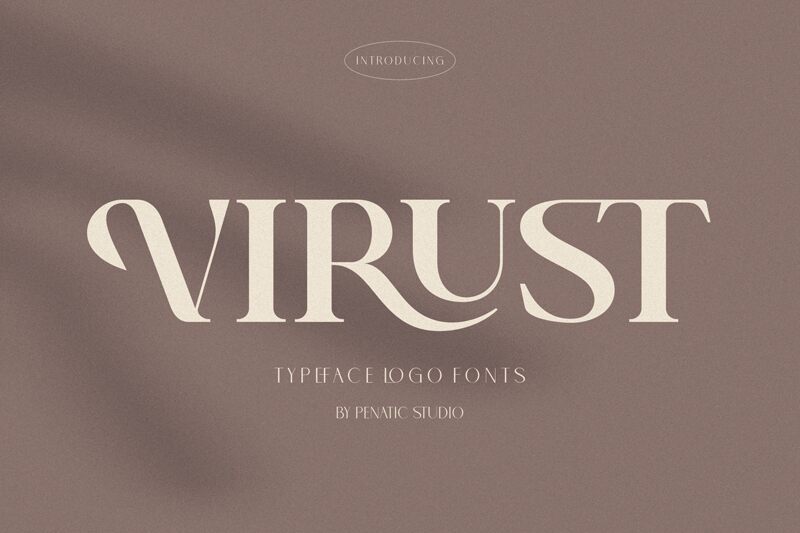
Virust font is a free serif font by Penatic Studio designed with bold letters in an elegant classic style. The type’s refined formal appearance gives off sophisticated and timeless vibes with its high contrast characters. Within every glyph, the lines and shapes are smooth, thick, heavy enough to make headlines stand on their own.
Use Virust in logo design, branding, business card design, book covers, posters, magazine covers and editorials. The font also suits applications in invitations and wedding cards. Billboard designs that need a new tasty heading will benefit from using this premium-looking type.